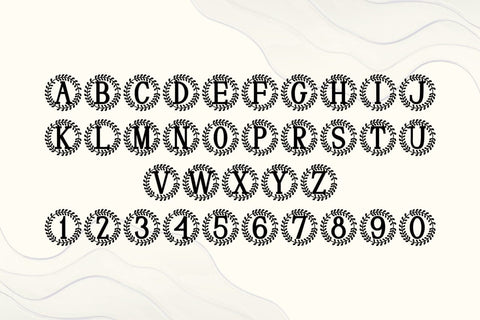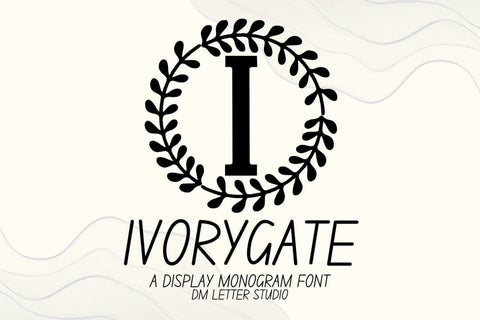
Ivorygate Monogram Font
Meet Ivorygate, the Monogram Font
Ivorygate Monogram Font turns simple initials into poised, gallery-ready emblems with a calm, luxurious feel. Strokes are smooth and confident. Generous counters keep tiny tags readable, while balanced proportions hold clarity at any size. Use it for wedding suites, boutique logos, keepsake gifts, foil seals, and premium packaging. In addition, Ivorygate pairs beautifully with refined serifs and quiet humanist sans fonts, so your layouts look polished without extra work.
Where this monogram font shines
Set single, double, or triple initials for logos, seals, menus, and place cards. Then frame them with laurel rings, oval borders, rope circles, or fine rules to echo the graceful geometry. Since the metrics favor symmetry and even spacing, centered compositions come together in minutes. As a result, your thumbnails pop on marketplaces and your listings feel consistent from invitations to signage. Ivorygate also scales smoothly from jewelry cards to entry displays, which makes it ideal for event décor and retail packaging.
Design tips for Ivorygate Monogram
Keep initials large and let white space breathe. Pair the headline monogram with a soft serif for body text or a clean sans for labels and dates. Add micro shadows, a fine inner stroke, or a delicate frame to create depth. Because the forms are airy and balanced, textured papers and metallic accents raise perceived value. However, keep wording short so the monogram remains the hero on small favors and wax seals.
Select stylistic alternates for key letters
Curves tuned for foil, letterpress, engraving, laser cutting, and clean vinyl paths
Why creators choose this monogram font
You want elegance that reads at a glance and works across many products. Ivorygate Monogram Font delivers steady clarity, quick layout, and a cohesive brand voice from invites to packaging and gifts.